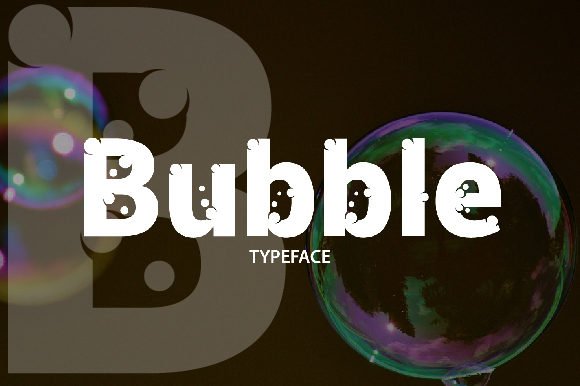
Get Ready to Pop with the Bubble Font
Have you ever stared at a blank page, waiting for inspiration to strike? You’re not alone. As creatives, we’ve all been there – stuck in a rut, searching for that one spark to set our designs ablaze. For me, it’s often a chance encounter with a quirky font that sets the wheels turning. And today, I’m excited to share with you one of my latest obsessions: the Bubble Font.
This charming font is more than just a pretty face – it’s a game-changer for designers looking to add a touch of whimsy to their projects. With its bubbly, fresh feel, the Bubble Font is the perfect tool for turning a mundane design into a showstopper. Whether you’re working on a brand identity, a social media campaign, or a marketing brochure, this font is sure to bring a smile to your face and a pop of excitement to your design.
Bubble Font Key Features
- Size: The font family includes 8 weights, ranging from Thin (100) to Black (900), providing flexibility for various design needs.
- Unique Characteristics: The font features a distinctive, rounded bubble-like shape for each letter, creating a playful and whimsical feel.
- Language Support: Bubble Font supports a wide range of languages, including Latin, Cyrillic, and Greek scripts, making it suitable for global applications.
- Kerning and Ligatures: The font includes advanced kerning and ligature pairs, ensuring smooth and professional-looking text rendering.
Bubble Font Review
Overall, I was excited to dive into the Bubble Font and see what it had to offer. Here are my thoughts.
- Unique design: The Bubble Font is undeniably eye-catching and stands out from more traditional font options.
- Fun for creative projects: This font is perfect for adding a playful touch to graphics, social media posts, and other creative content.
- Wide range of applications: The Bubble Font is suitable for various purposes, from advertisements to social media graphics.
- Limited readability: While the font is visually appealing, its unique design can make it difficult to read, especially in large blocks of text.
- Not ideal for formal use: Due to its playful nature, the Bubble Font may not be the best choice for formal documents, presentations, or other professional materials.
- May not work well in small sizes: The font’s rounded design can become distorted or hard to read when used in small sizes or at low resolutions.
The Bubble Font is a fun and creative addition to any designer’s toolkit. While it may have some limitations, its unique design and versatility make it a great choice for the right project. Just be sure to use it thoughtfully and consider the needs of your audience.
The Bubble Font is commonly used for:
- Creating playful and eye-catching headings
- Adding a fun and whimsical touch to designs
- Highlighting important information or calls-to-action
Here are a few tips for getting the most out of the Bubble Font:
- Experiment with different font sizes and styles to create a unique look
- Use the bubble effect to create a sense of depth or dimension
- Combine the Bubble Font with other design elements to create a cohesive look